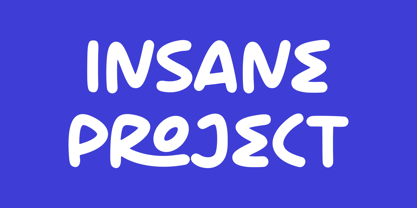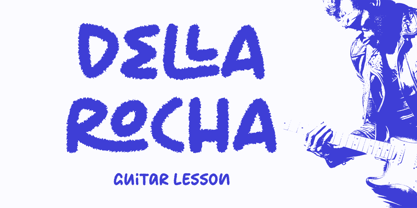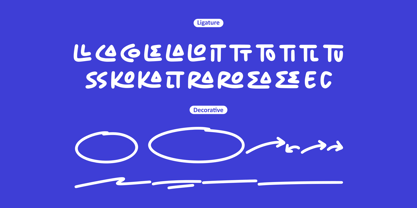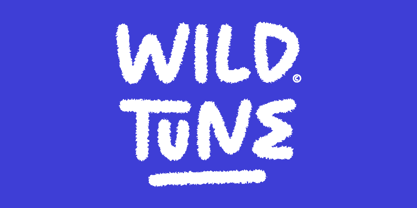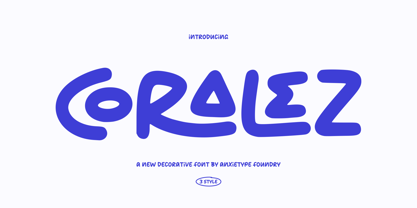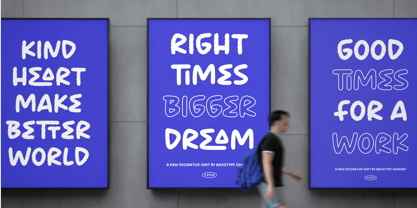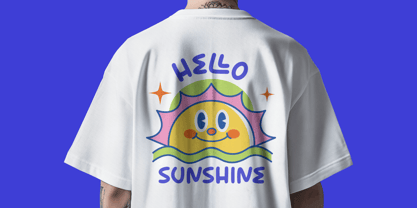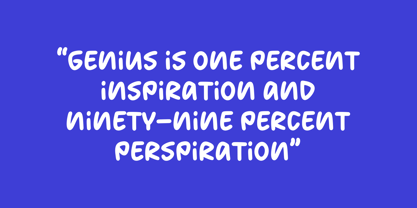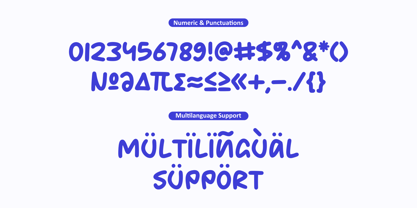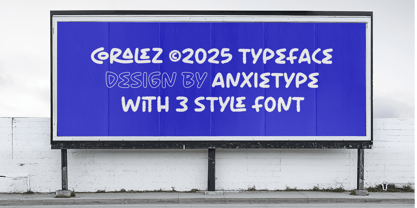
Coralez
by Anxietype Foundry
The Coralez Font Family was designed by Annas Rifky Anhar and published by Anxietype Foundry. Coralez contains 3 styles and family package options. More about this family
Coralez - a display decorative font.
Coralez is a font family presenting three stylish choices: Regular, Distorted, and Hollow. Each style brings a unique flavor to its application, be it branding projects, design thematics, sticker creation, or machine cutting ventures, Website etc.
Coralez, a culmination of style and substance, is your go-to choice for versatile, fresh, and distinct design endeavors. Unleash a new dimension in your artistic expression with Coralez.
Designers: Annas Rifky Anhar
Foundry: Anxietype Foundry